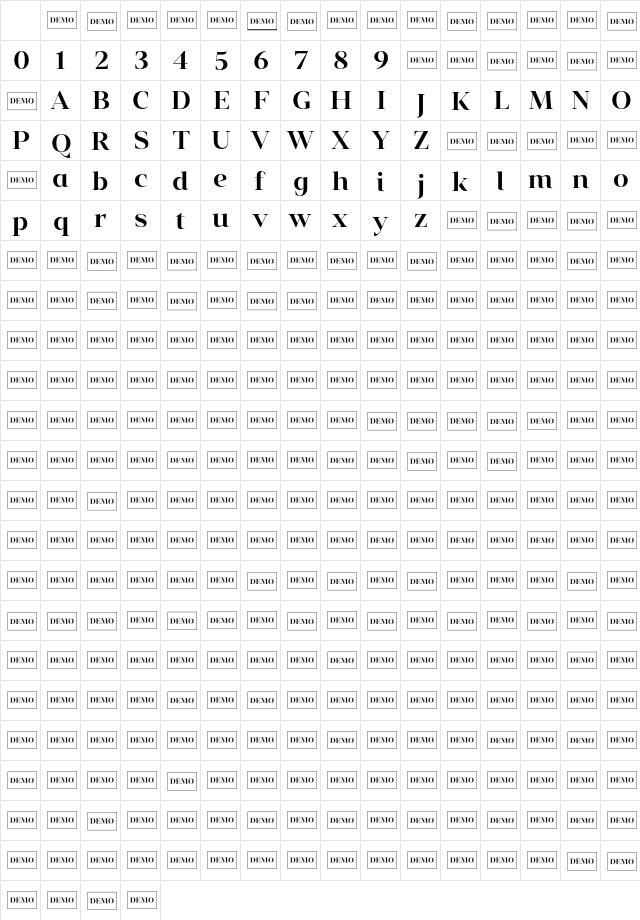
Complete Vendura SemiBoldDemo glyph index. Displaying only characters natively supported by Vendura SemiBoldDemo font.
Vendura is a composed and adaptable typeface that performs quietly and consistently across a wide range of design contexts. Its bold stroke weight gives it real presence on the page.